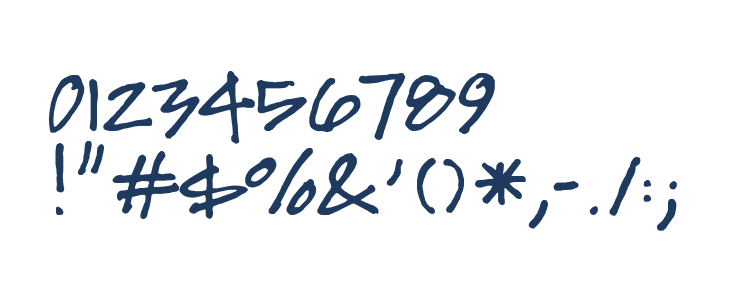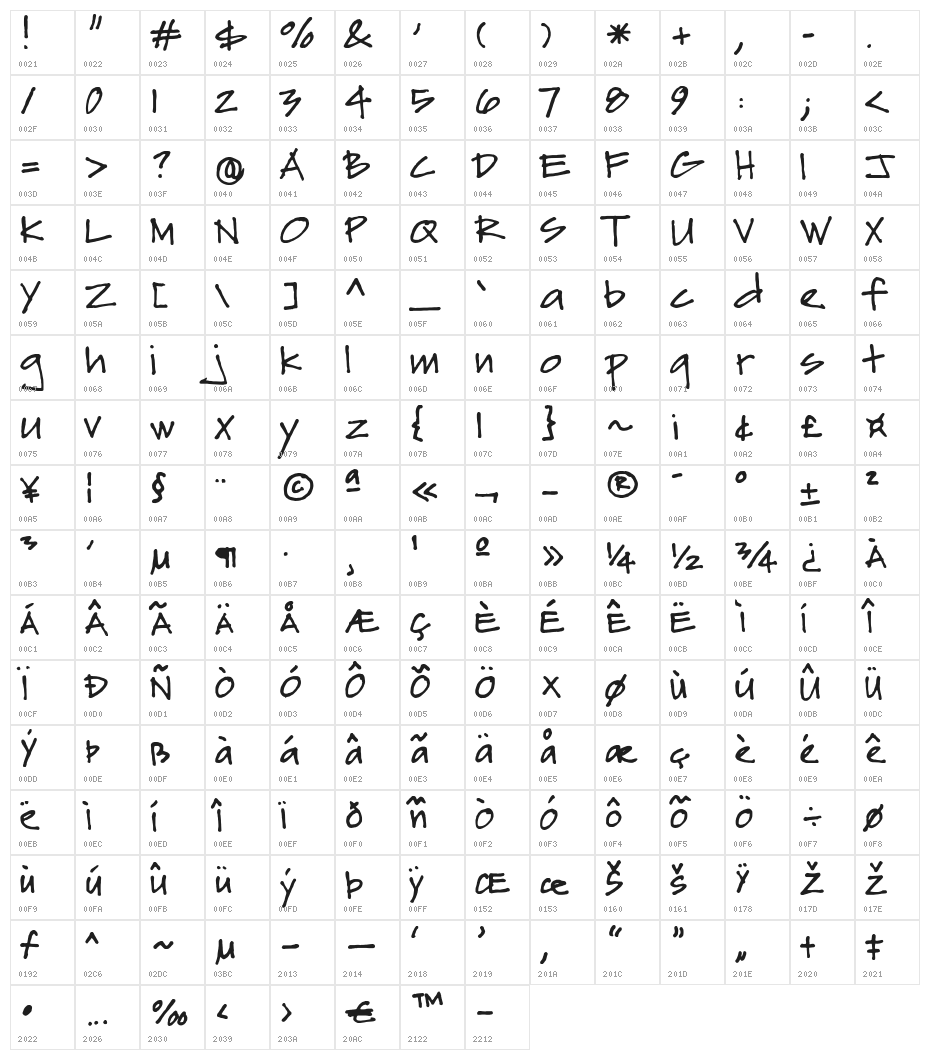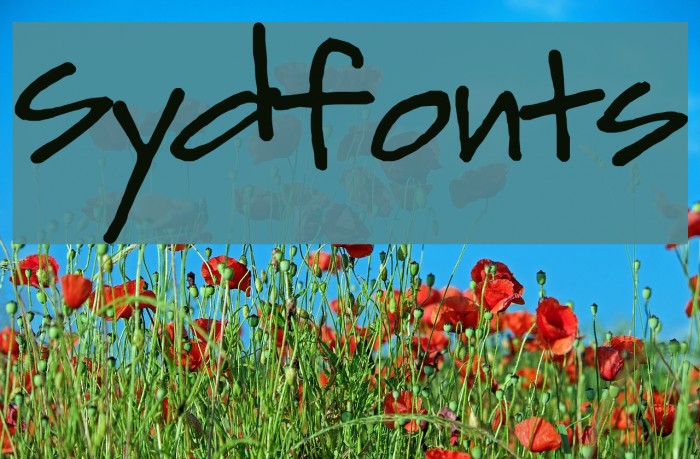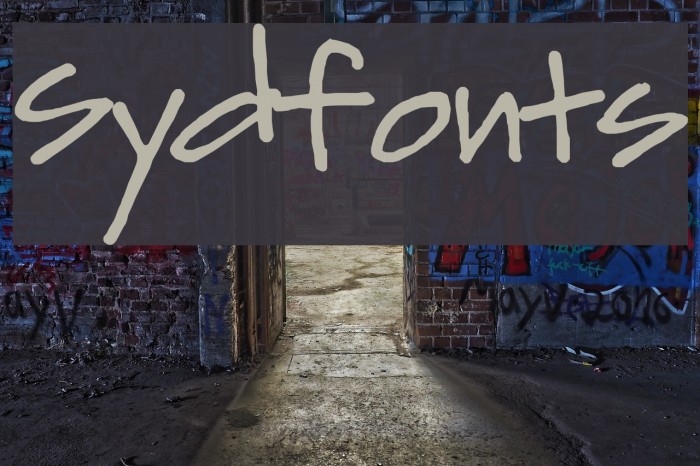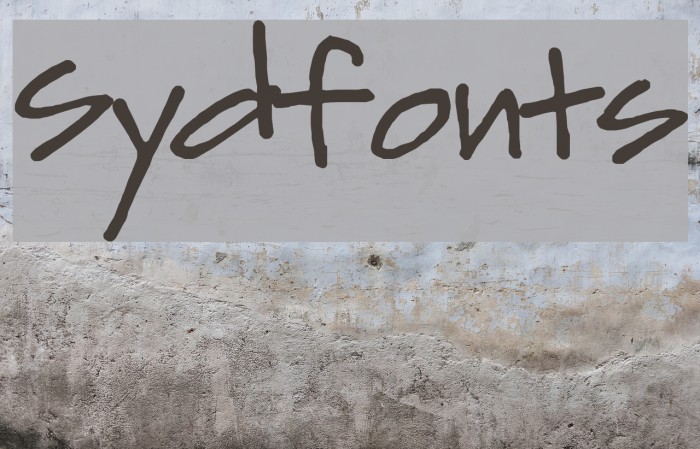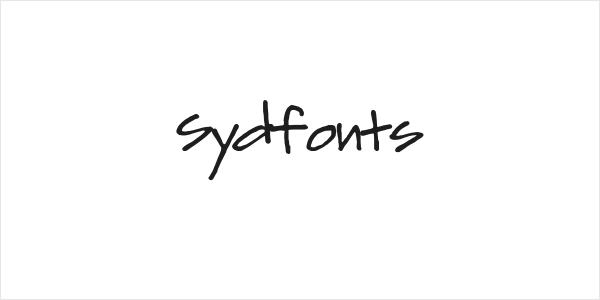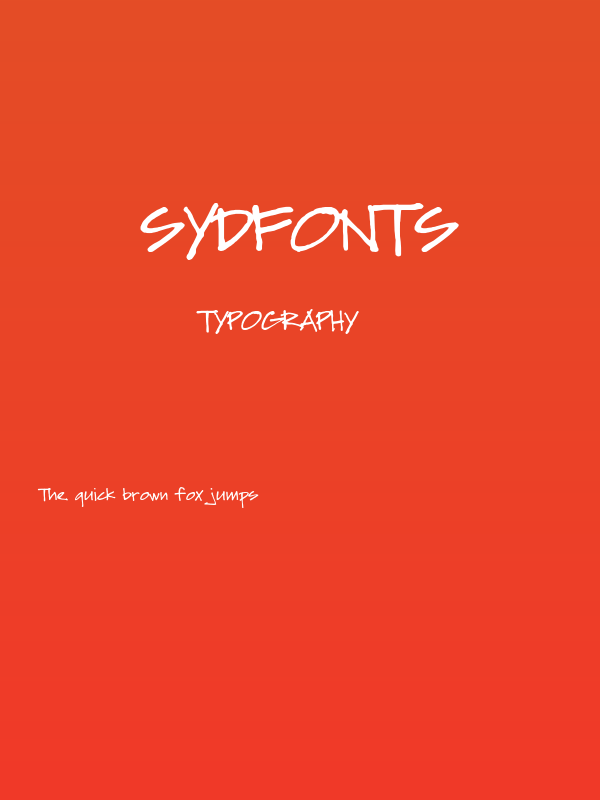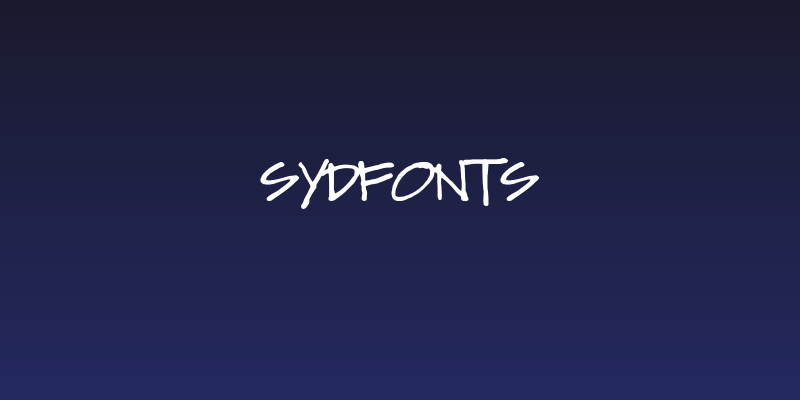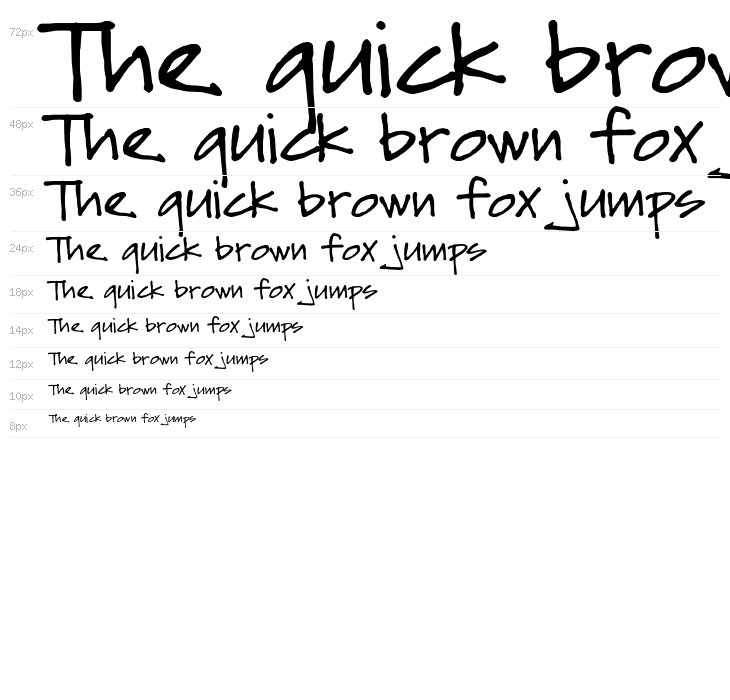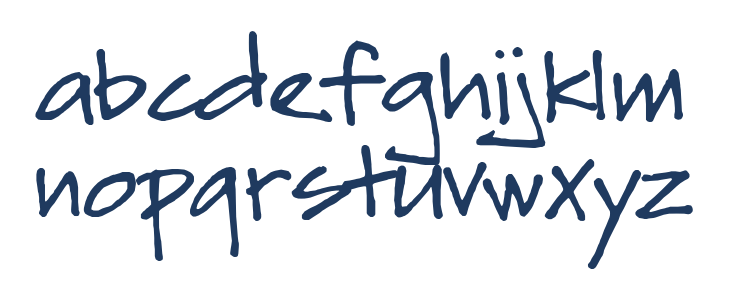
Sydfonts Font
Sydfonts Description
This font features a dynamic and energetic handwritten style, characterized by its irregular and playful strokes. The letters are bold and expressive, with a casual, informal appearance that suggests spontaneity and creativity. The uppercase and lowercase letters maintain a consistent flow, while the numbers and special characters integrate seamlessly with the overall design. The font's organic feel is enhanced by its slightly uneven baseline and varied stroke widths, giving it a personal and approachable touch.
| Overall Style | Casual, Creative |
| Proposed Projects | Ideal for creative projects such as greeting cards, personal branding, artistic posters, and social media graphics. |